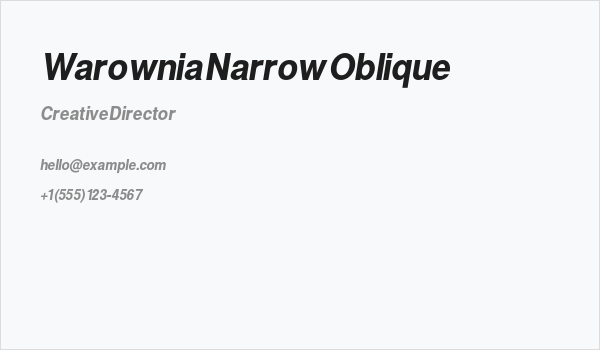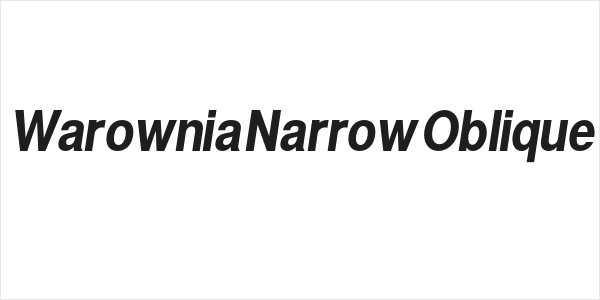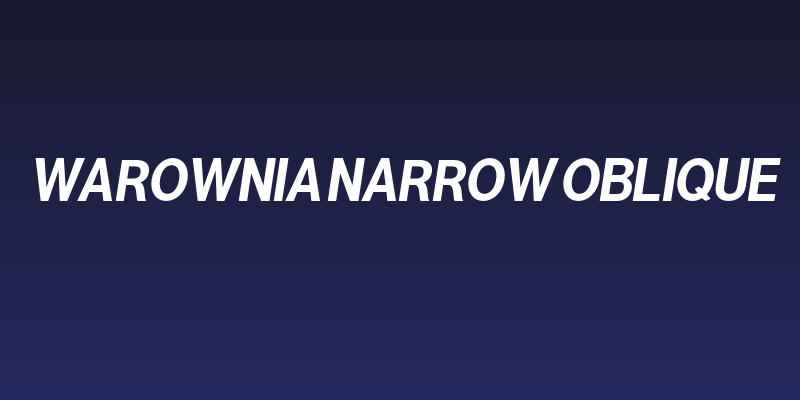
Warownia Narrow Oblique Font
Warownia Narrow Oblique Description
This font exhibits a sleek and modern design with a narrow and oblique style. The characters are slightly slanted, giving a dynamic and forward-moving appearance. The uppercase and lowercase letters are well-proportioned, maintaining a consistent flow throughout the typeface. The numerals are clear and legible, matching the overall aesthetic of the font. Special characters are included, enhancing its versatility for various applications. The font's clean lines and contemporary look make it suitable for a wide range of design projects.
| Proposed Projects | Ideal for branding, advertising, headlines, and modern web design projects. |